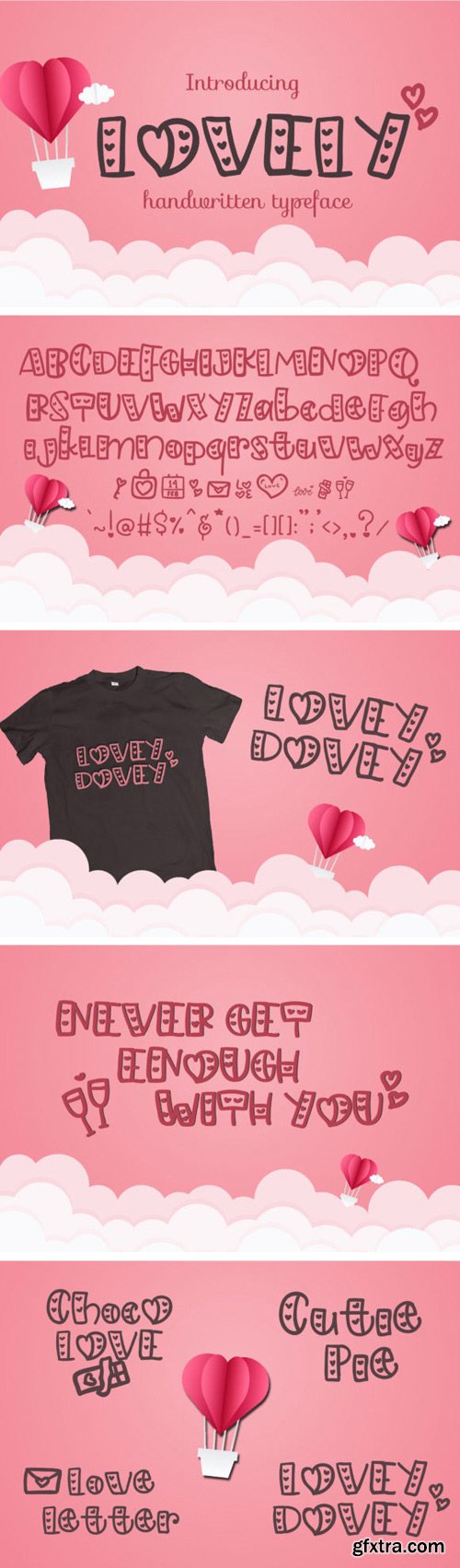
Lovely Font
The Lovely is an amazing handwritten font. It has a cute feel and is great for any love-related design, social media post, or craft. It comes with extra love-themed doodles by typing 0-9.